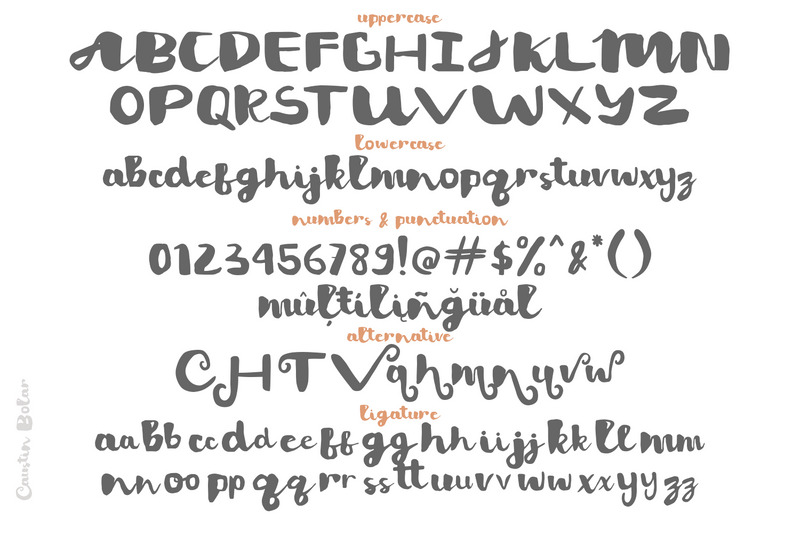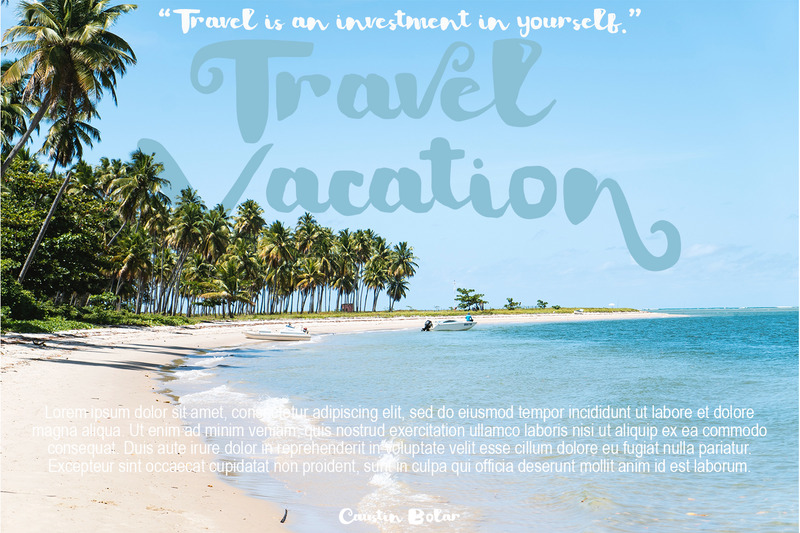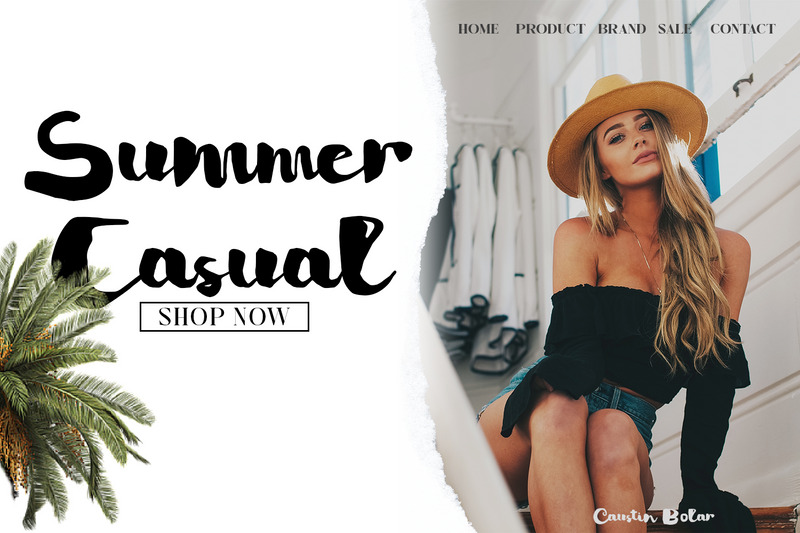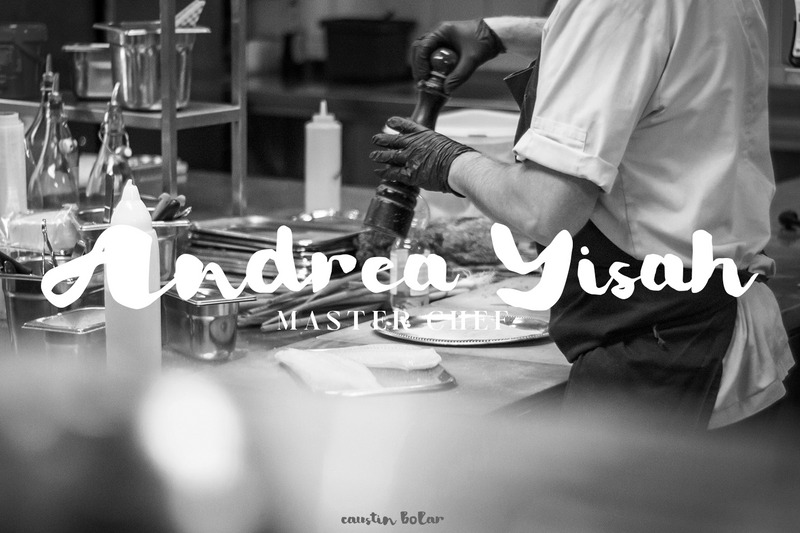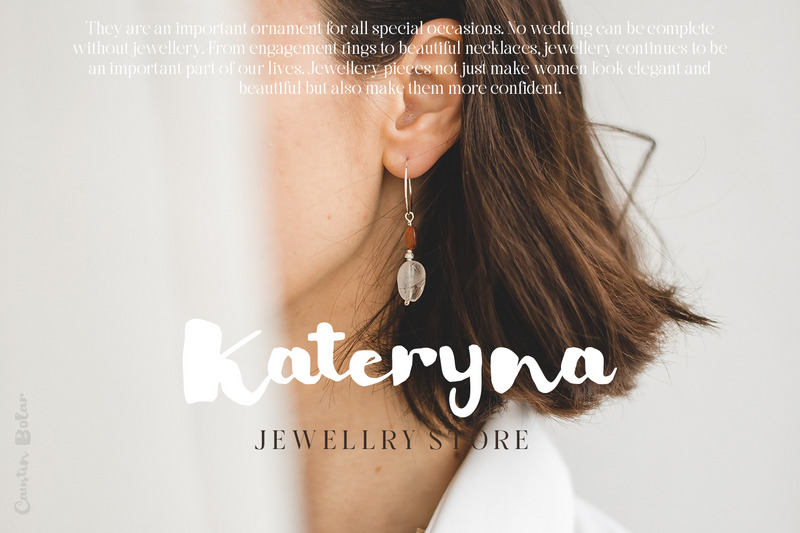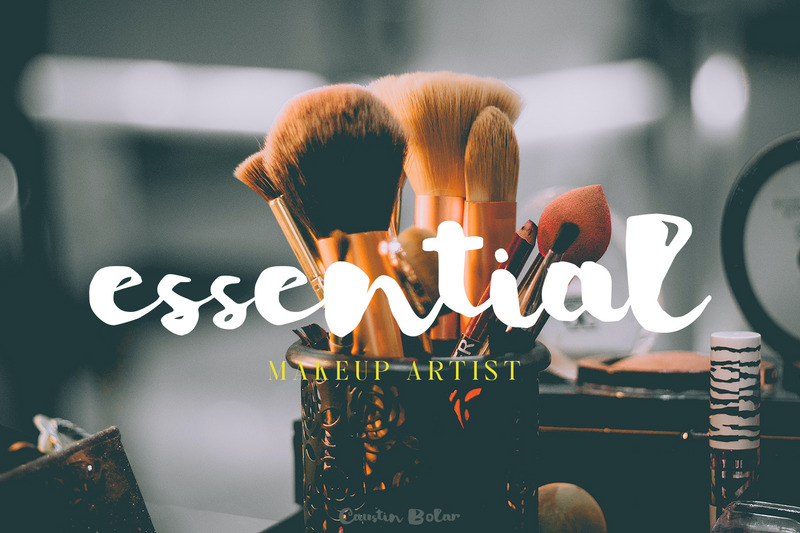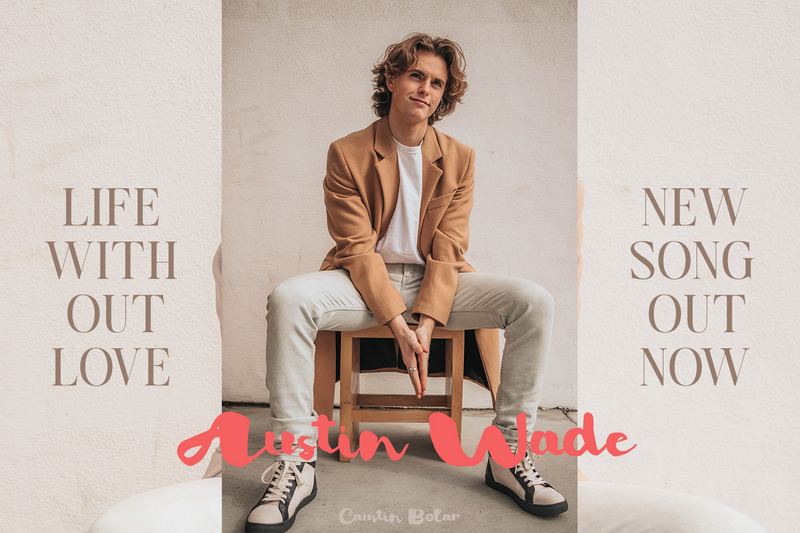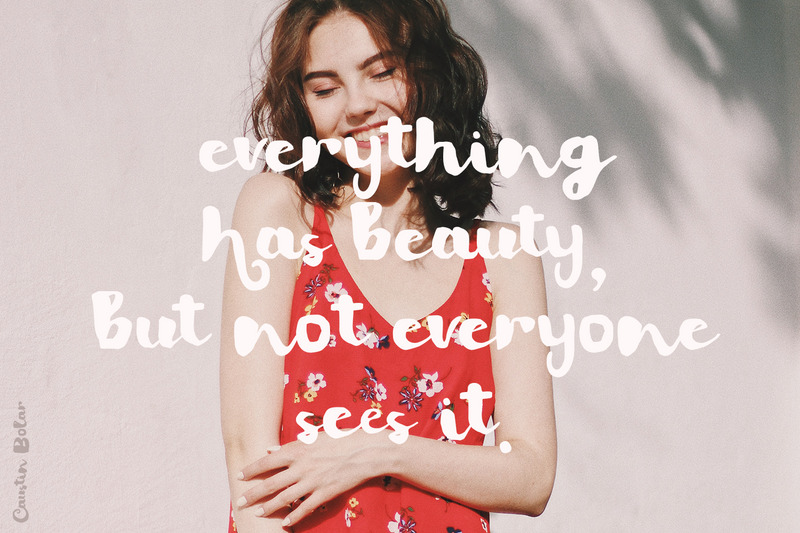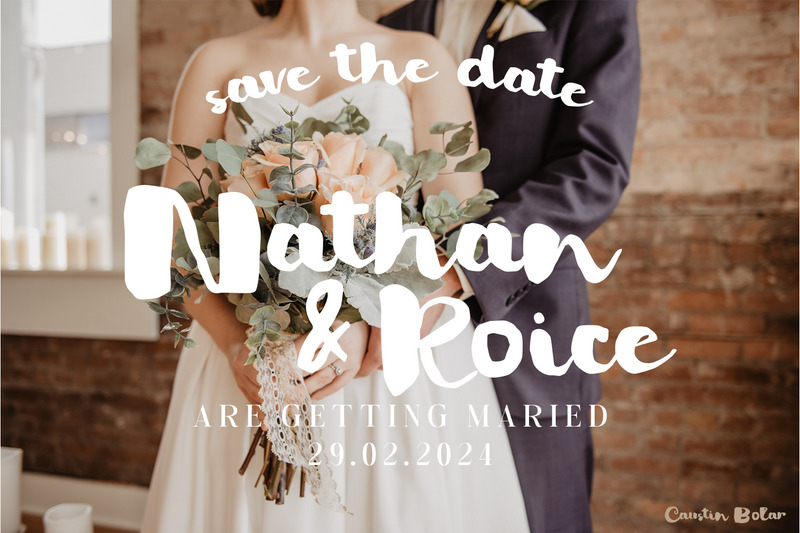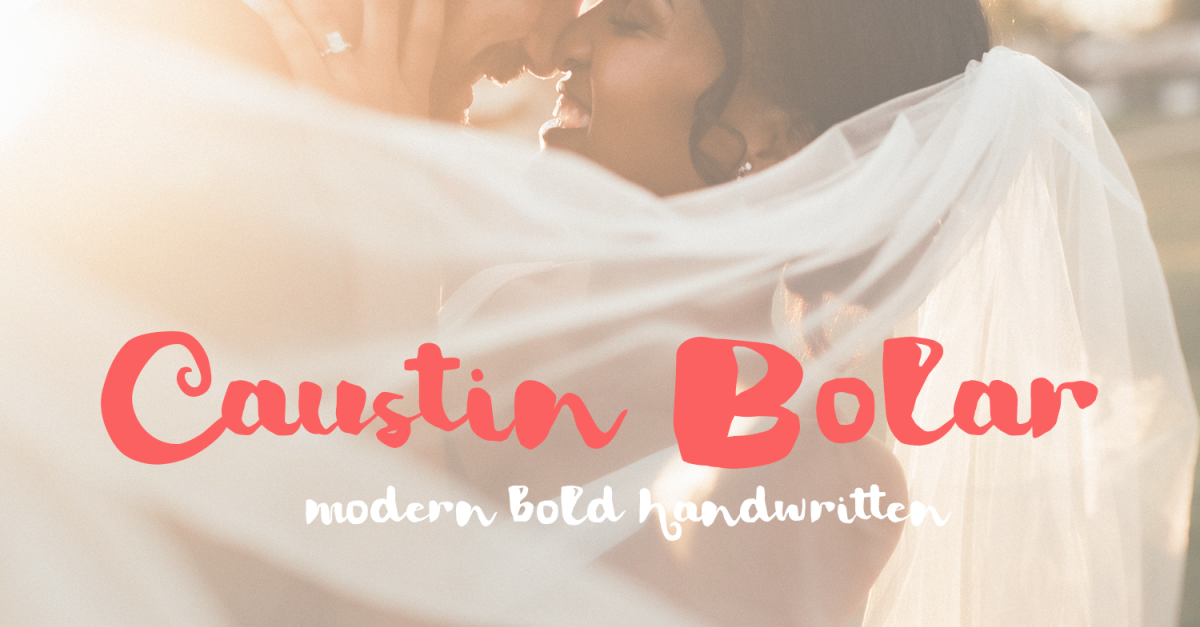
Caustin Bolar - Bold Script
Really excited to introduce Caustin Bolar is a bold brush script! Caustin Bolar will be perfect for all your designs project.
•  Uppercase
•  Lowercase
•  Number & Symbol
•  International Glyphs
•  Ligature